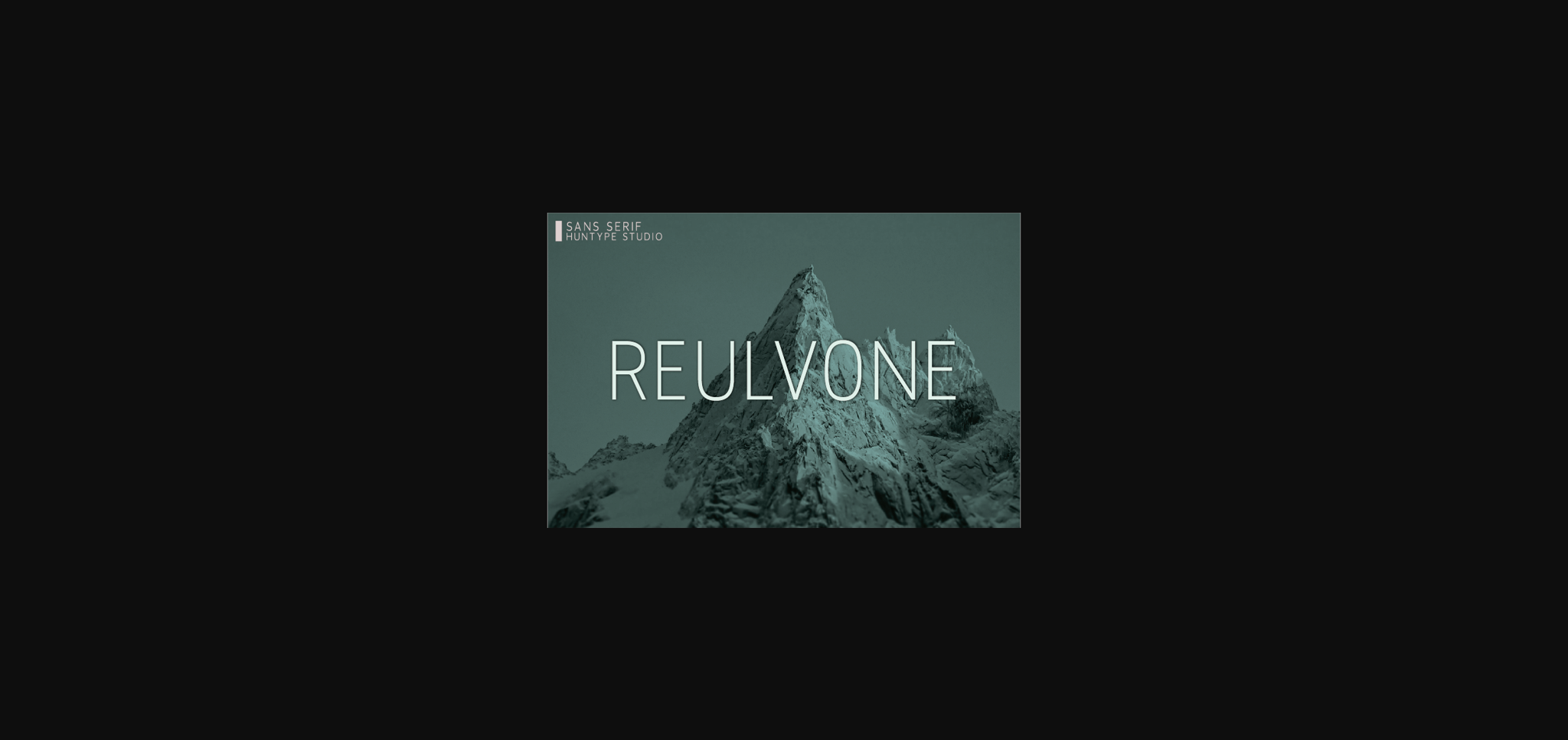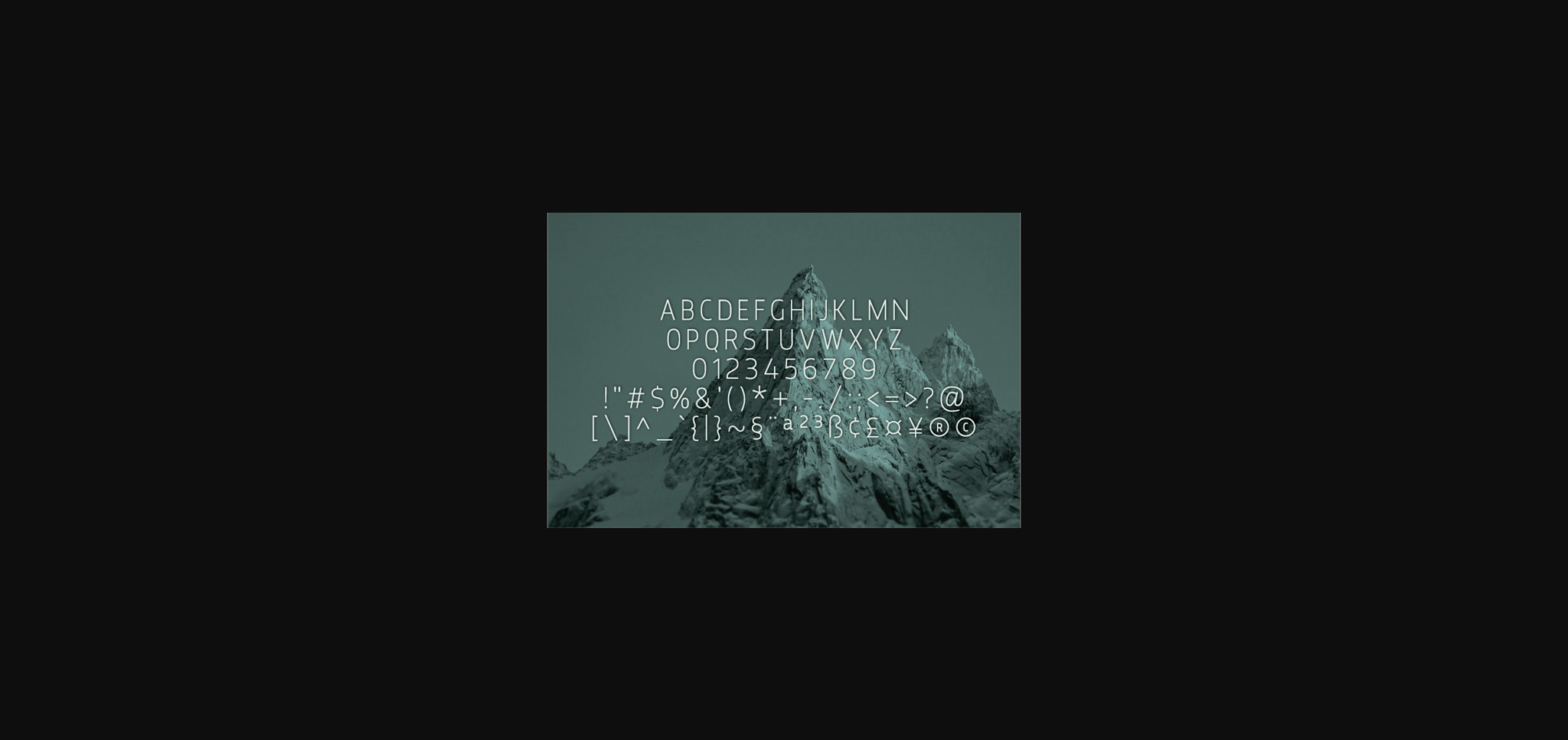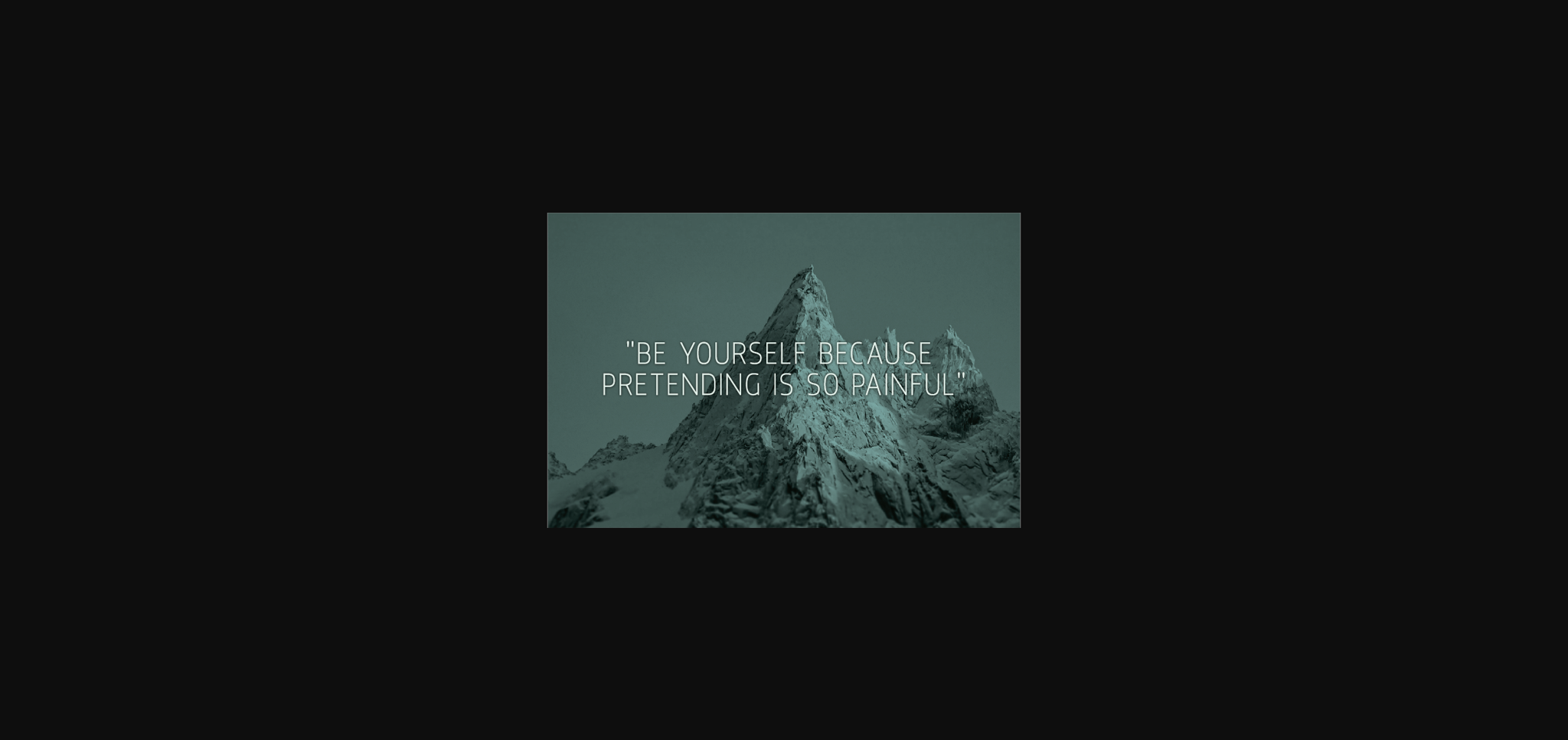
About Reulvone Font
Reulvone is a modern and clean sans serif font that is versatile and looks great in just about any context. With smooth and clean lines, and just a touch of contrast, Reulvone works beautifully for logos, branding, web headings and much more.